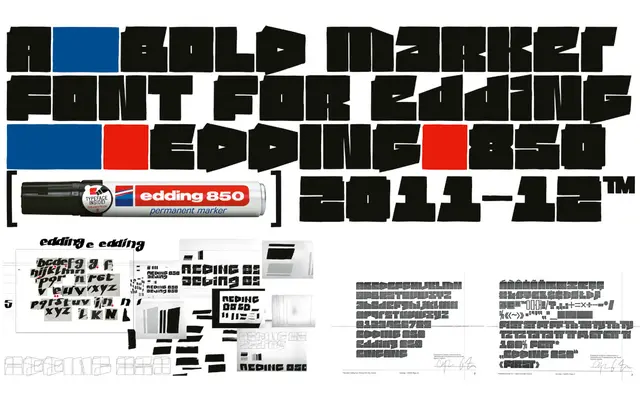
Edding850
Type Different · 2011
A single-weight marker typeface commissioned by Edding in 2011, replicating the stroke character of the edding 850 felt-tip pen.
Commissioned by Edding Germany and released in 2011, this typeface captures the thick, uniform strokes of the edding 850 marker pen. It was originally deployed as a webfont for an interactive write-board called Type-for-Type, where visitors could compose and download their own text. Free for personal use, with a commercial licence available.
Designed to replicate the visual character of writing with an edding 850 marker pen, placing it firmly in the display/script-adjacent category of hand-drawn marker typefaces.